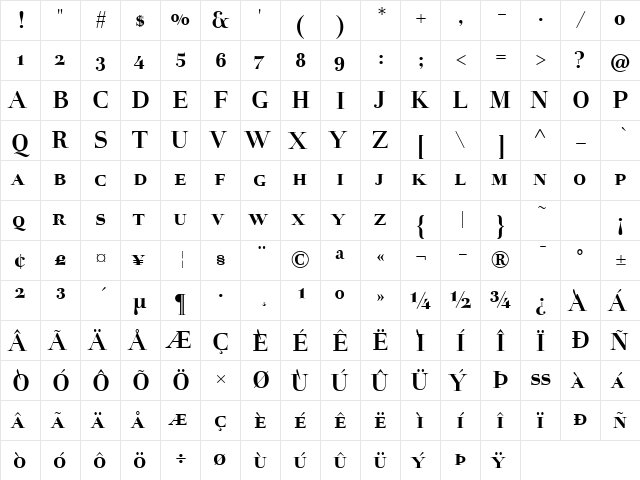
Holmen-BoldSC Regular
| Foundry | FSI FontShop International GmbH |
| Designer | Per Jorgensen |
Design Context for Holmen-BoldSC Typeface
Holmen-BoldSC takes a measured approach to typography — its balanced proportions and neutral character make it a reliable workhorse for both digital and print work. The heavy weight commands attention and anchors typographic hierarchies.